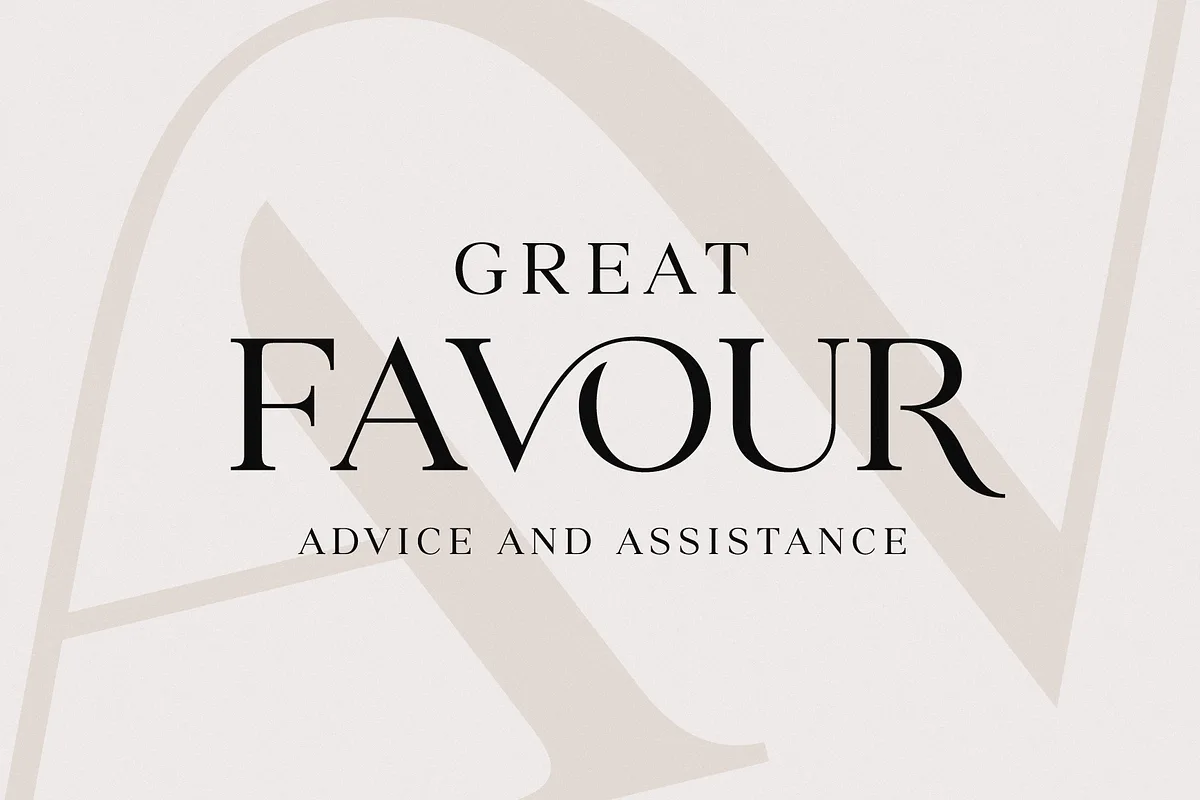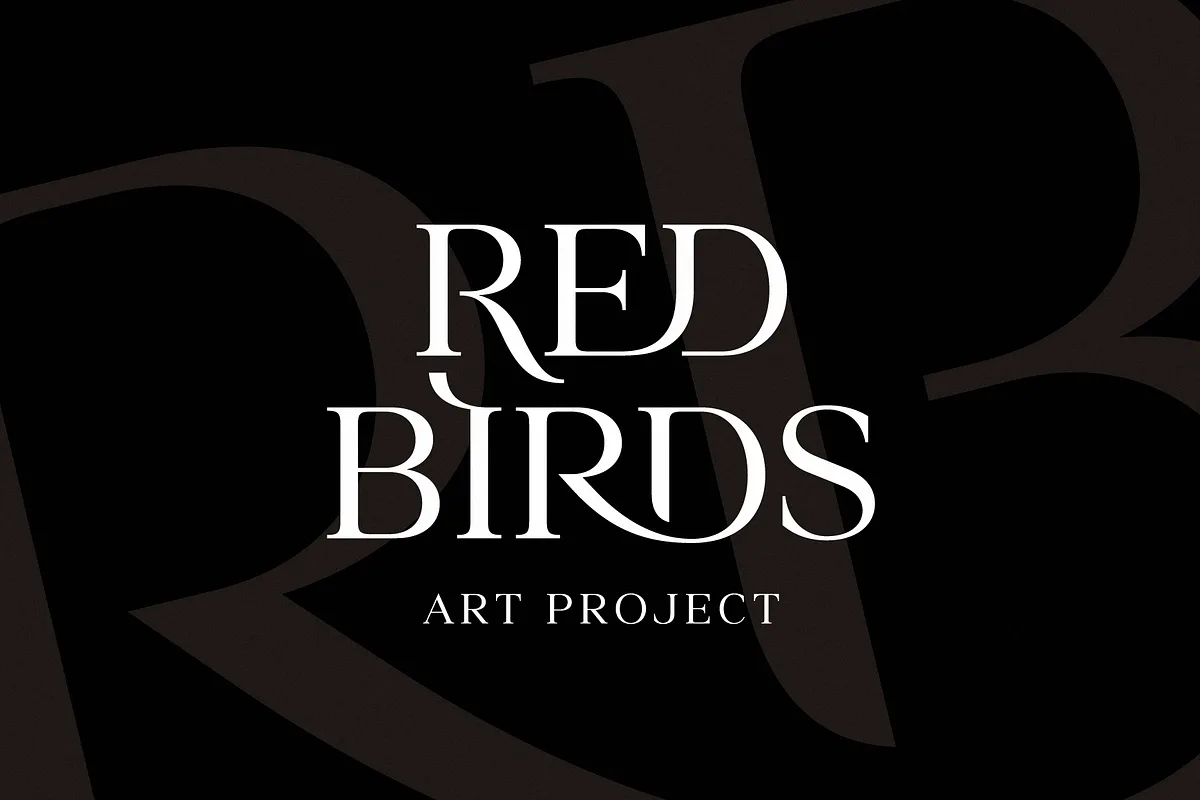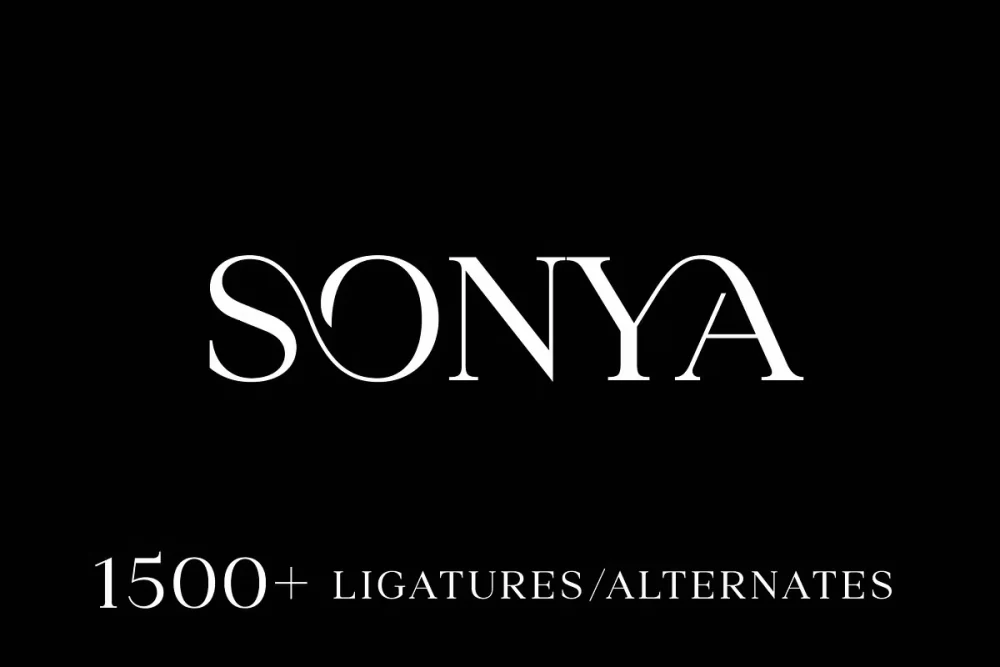
Sonya is a new all-caps serif font that offers a wide variety of alternates and features up to 7 unique ligatures for each two-letter combination. Perfect for branding projects, logos, magazine imagery, wedding invitations, posters, clothing, packaging, website headers, or simply as a stylish text overlays to any background image.
- Latin uppercase letters and up to 3 alternates per letter
- Basic multilingual uppercase letters
- Up to 7 ligature per each two-letter combination
- Numbers
- Extra characters
- Punctuation